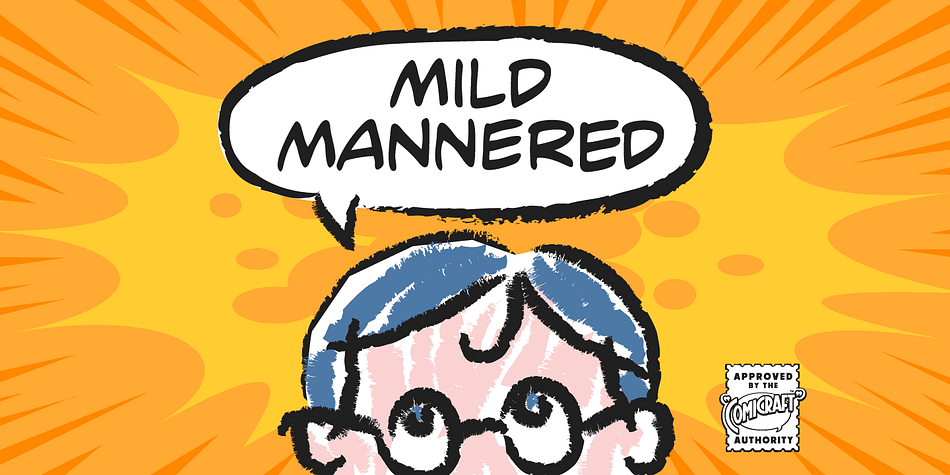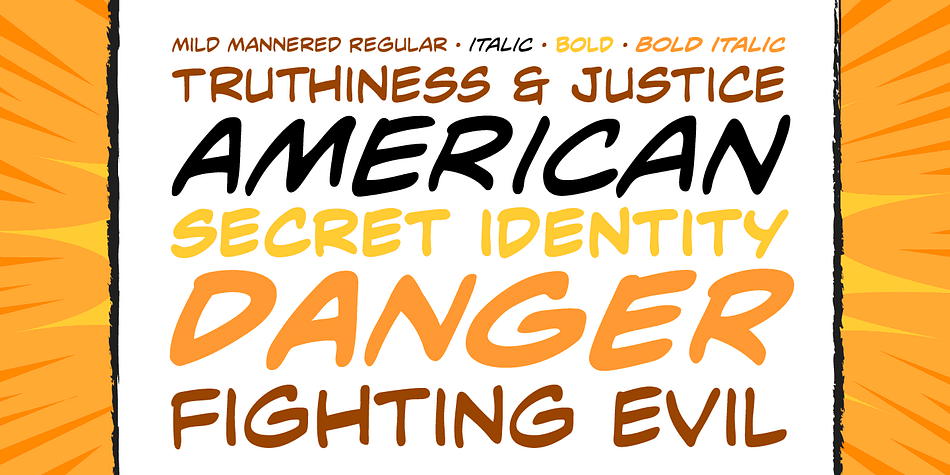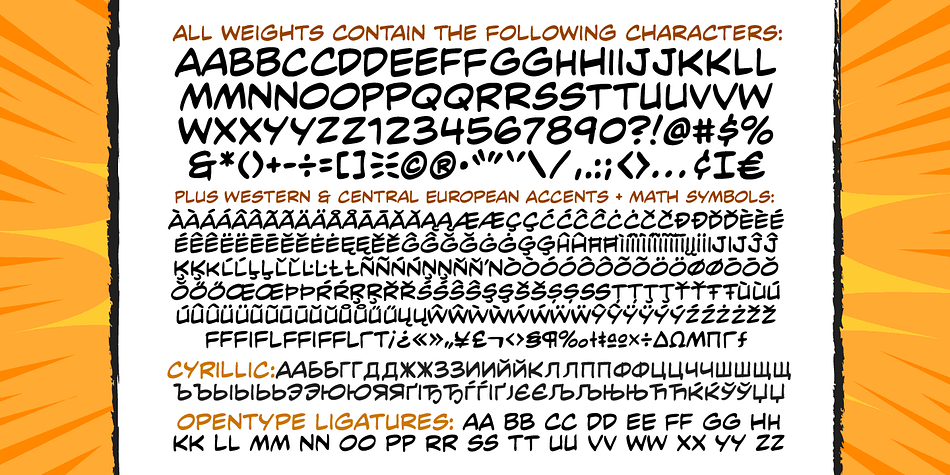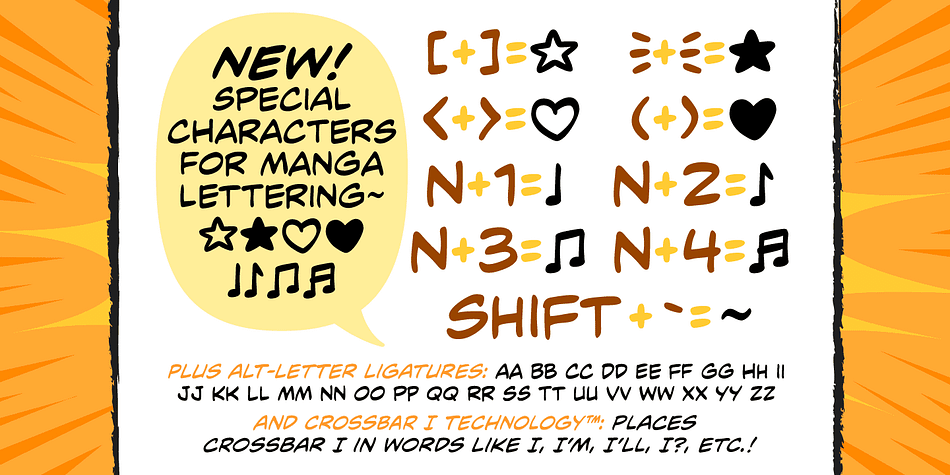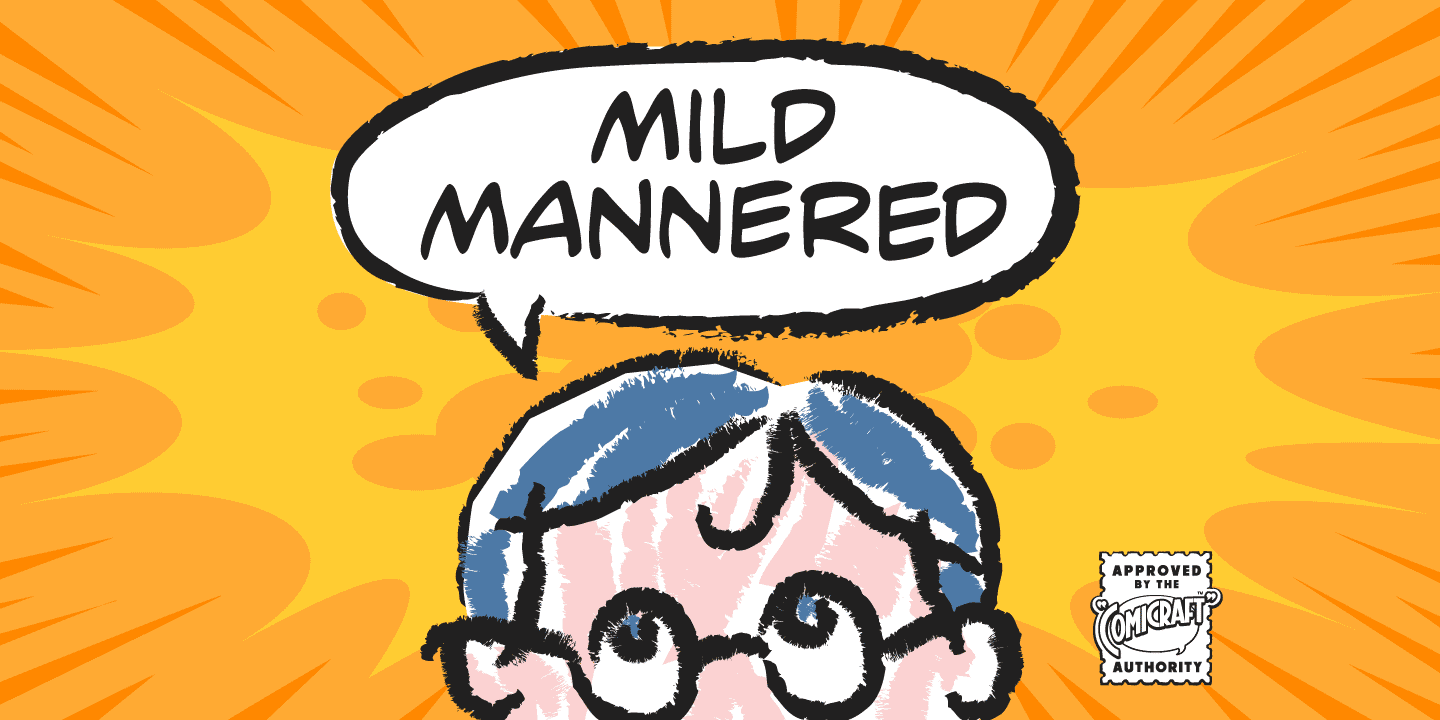
Designed by John Roshell, Mild Mannered is a comic and hand display font family. This typeface has four styles and was published by Comicraft.
When this font slips on a pair of ordinary, over-the-counter spectacles, applies a little hair gel and straightens its red, white and blue tie, it disappears amongst common mortals like you and I… But when danger raises its ugly head, when Truthiness, Justice and the American Way are threatened, MildMannered abandons its secret identity, rips open its shirt and takes to the skies to fight evil… and, of course, to help sell colorful paper plates, halloween costumes and happy meals.